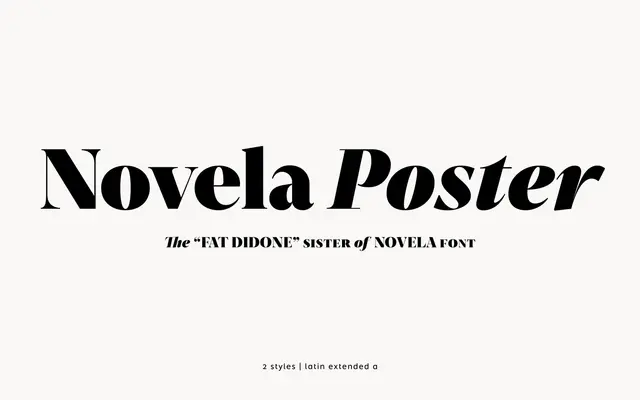
Novela Poster
atipo foundry · Raul Garcia del Pomar, Ismael Gonzalez (atipo) · 2016
Novela Poster specimen from atipo foundry
The poster cut of Novela, sharpened for the largest sizes with true small caps, ornaments and the same stylistic alternates as the wider family.
A display serif by atipo that takes the Novela system to its sharpest display setting. Two styles, Poster and Poster Italic, sit at the top of the optical system and carry the family's true small caps, oldstyle and lining figures, standard ligatures, stylistic alternates, ornaments and case-sensitive forms. Sits in editorial covers, masthead and identity work where you want the contrast and detail of Novela pushed as far as it will go.
Atipo position Novela Poster as the display extreme of the Novela system, drawn for the largest sizes with the same small caps, ornaments and stylistic alternates as the wider family.